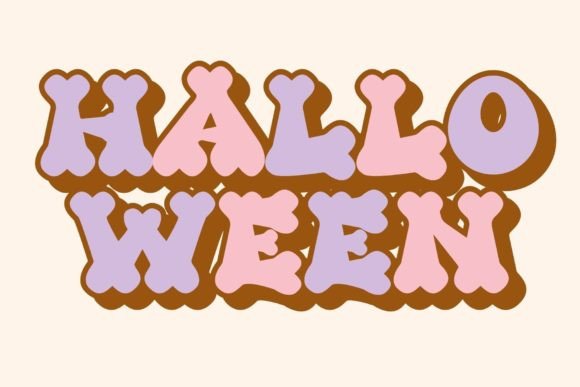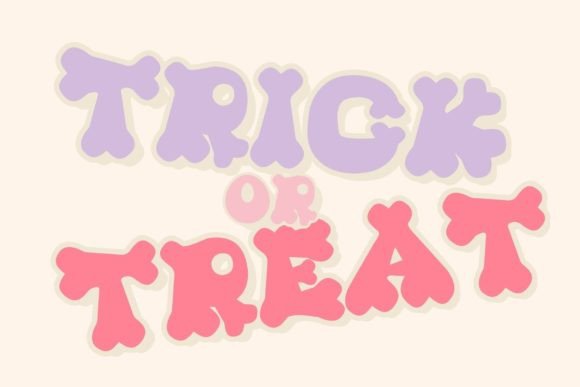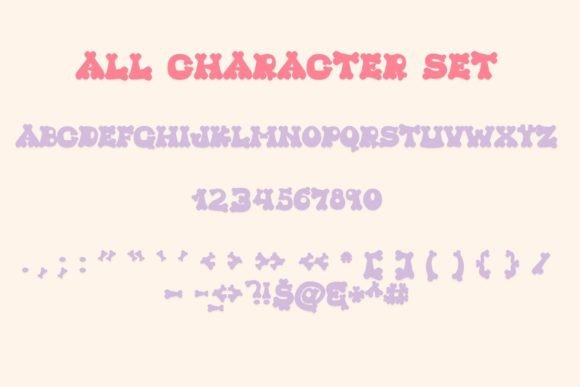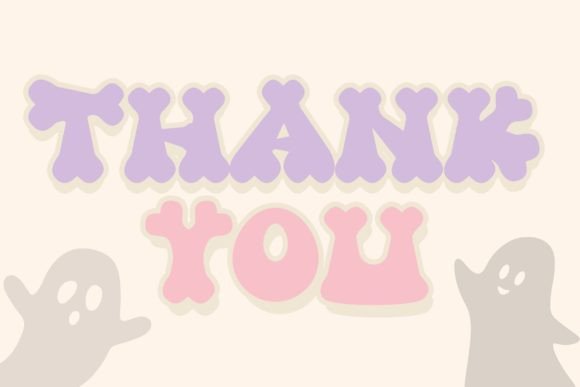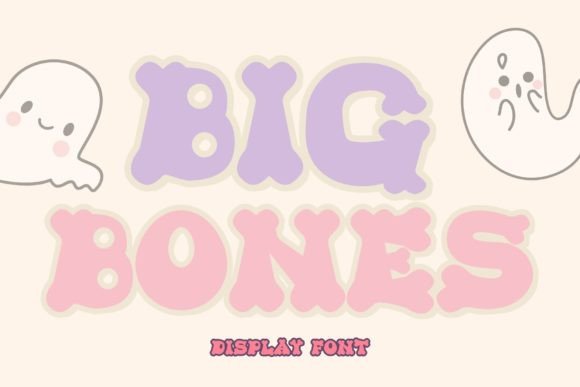
Introducing Big Bones Font: The Ultimate Retro Halloween Display Font
Are you looking for a font that screams Halloween spirit and adds a touch of playfulness to your designs? Look no further than Big Bones Font! This groovy display font is perfect for designers and crafters who want to add a retro twist to their projects. In this article, we’ll dive into the features and benefits of Big Bones Font, and explore how you can use it to take your designs to the next level.
What is Big Bones Font?
Big Bones Font is a retro Halloween-themed display font that embodies the spirit of playfulness and authenticity. Its unique design makes it perfect for a wide range of projects, from blog posts and logos to branding, ads, invitations, greeting cards, planners, photo albums, decorations, and more. With Big Bones Font, you can add a touch of Halloween magic to any design and make it stand out from the crowd.
Key Features of Big Bones Font
- Retro Halloween theme: Big Bones Font has a distinct retro Halloween vibe that will transport your designs back to the spooky season.
- Playful and authentic: The font’s playful and authentic design makes it perfect for projects that require a touch of whimsy and fun.
- Groovy display font: Big Bones Font is designed to make a statement, with bold and eye-catching lettering that’s perfect for headlines and titles.
- Versatile: You can use Big Bones Font for a wide range of projects, from digital designs to print materials.
Benefits of Using Big Bones Font
- Adds a touch of personality: Big Bones Font adds a unique and playful touch to your designs, making them stand out from the crowd.
- Perfect for Halloween-themed designs: If you’re creating designs for Halloween or a spooky-themed party, Big Bones Font is the perfect choice.
- High-quality design: The font is designed with high-quality graphics, ensuring that your designs look professional and polished.
How to Use Big Bones Font
- Pair it with other fonts: Big Bones Font pairs well with other fonts, such as sans-serif fonts for a modern look or script fonts for a more elegant feel.
- Use it for headlines: Big Bones Font is perfect for headlines and titles, where you want to make a bold statement.
In conclusion, Big Bones Font is a retro Halloween groovy display font that’s perfect for designers and crafters who want to add a touch of playfulness and authenticity to their designs. With its unique design, versatility, and ease of use, Big Bones Font is a great addition to any design toolkit. So why wait? Download Big Bones Font today and start creating spooky-ooky designs that will leave a lasting impression!